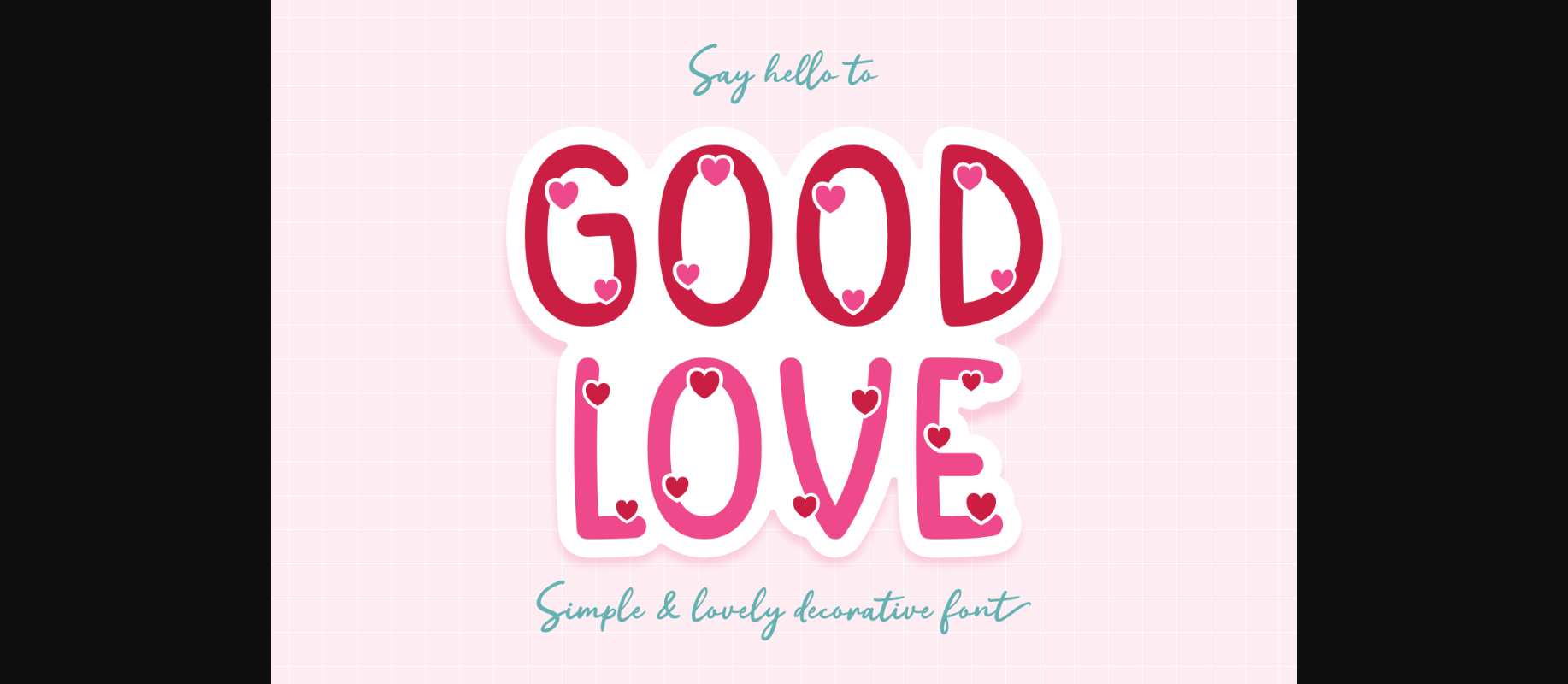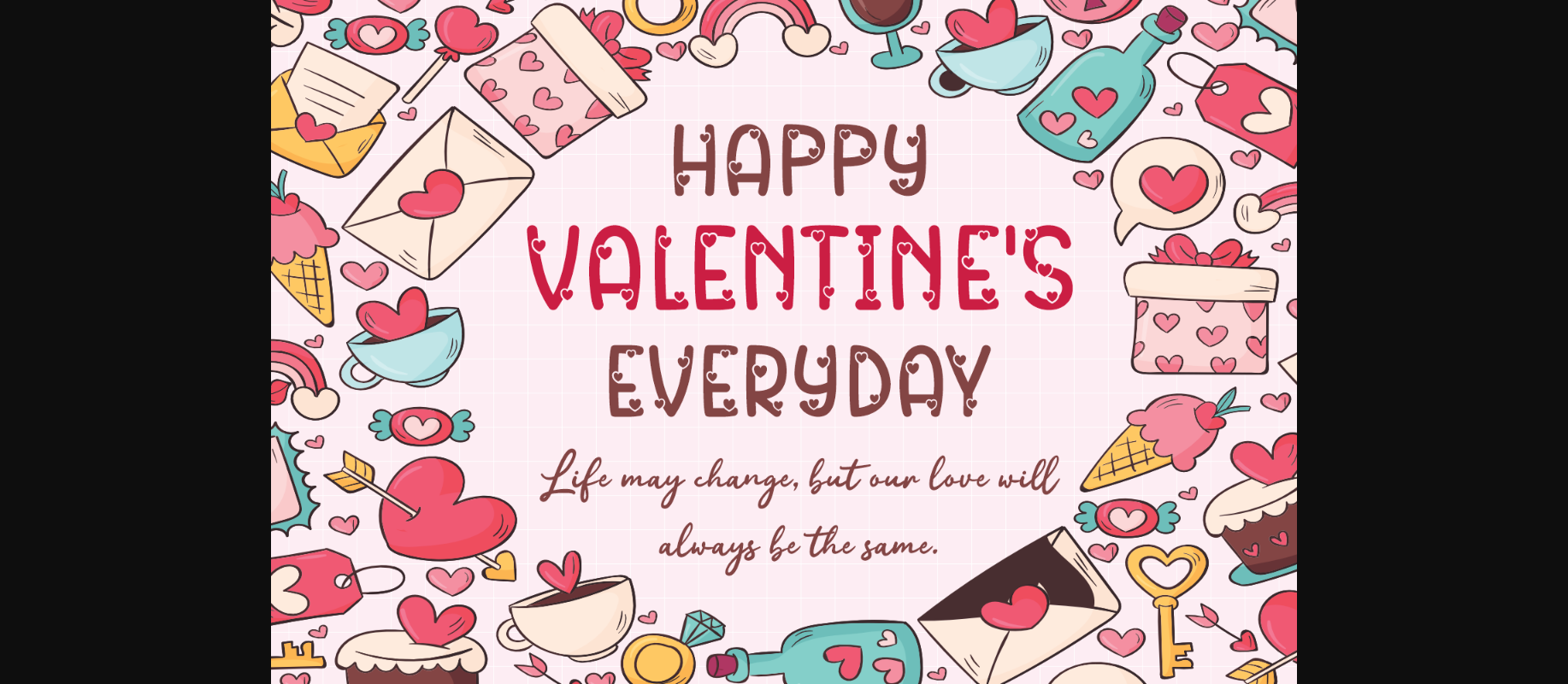
About Good Love Font
You can see playful decorative little hearts on every letter. With this font, your messages will become really super cute. This font is perfect for posters, greeting cards, t-shirts, branding materials, quotes, and any other amazing projects you are working on.